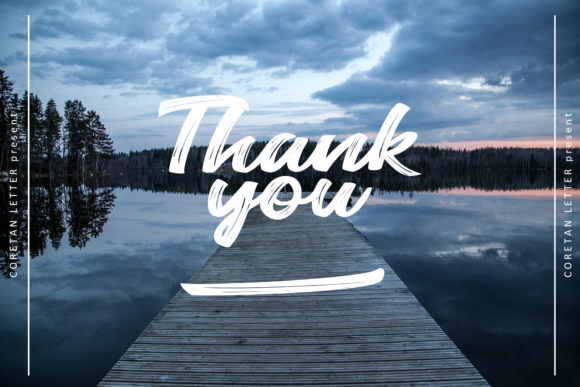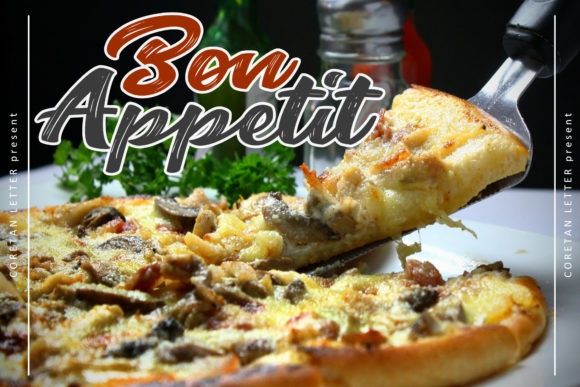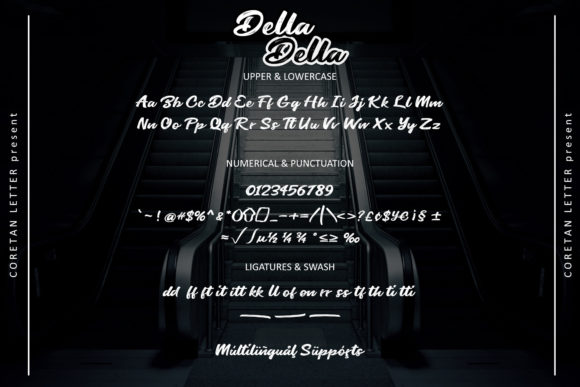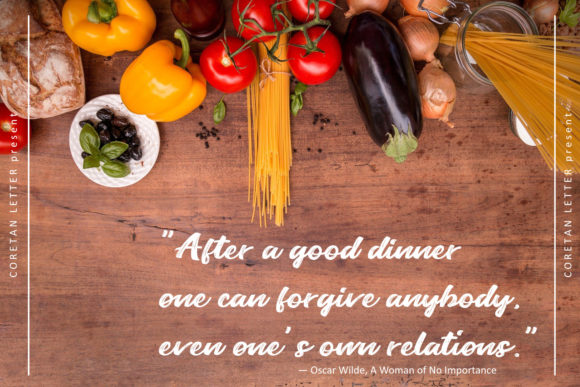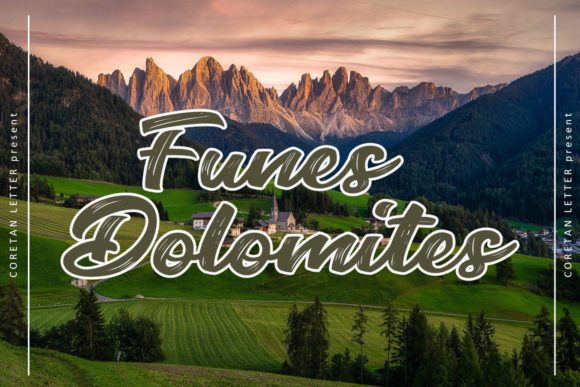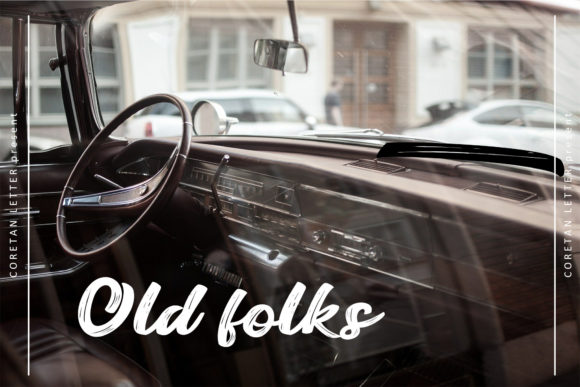
The Designer’s Delight: Unpacking the Della Della Font
I’ll never forget the time I was working on a branding project for a trendy coffee shop. My client wanted a font that screamed confidence, energy, and a dash of nostalgia. I scoured the internet, tried out a gazillion fonts, but nothing seemed quite right. That was until I stumbled upon Della Della Font. It was love at first sight! 💕 In this article, I’ll share my journey with Della Della, its features, and how to make the most of it in your designs.
An Honest Review of Della Della Font
So, what makes Della Della so special? Let’s dive into the good stuff and, well, the not-so-good stuff.
What I Love About Della Della ✨
- 💪 **Strong and Confident**: Della Della’s thick lettering and cursive strokes exude confidence and dynamism, making it perfect for headlines and logotypes.
- 🕰️ **Nostalgic Charm**: This font has a certain vintage vibe that adds character to your designs, evoking memories of classic signage and posters.
- 🎨 **Brushed Handwritten Feel**: The subtle brush strokes give Della Della a human, handcrafted feel that’s perfect for creative projects.
- ✅ **Easy to Read**: Despite its bold nature, Della Della remains surprisingly legible, even at smaller sizes.
While Della Della is an amazing font, it’s not without its quirks:
- ⚠️ **Limited Use in Body Text**: Due to its bold nature, Della Della might not be the best choice for lengthy body text. It’s best used for headings and titles.
- 🤔 **Kerning Issues**: As with any font, you might encounter some kerning issues, especially with certain letter combinations. Be sure to adjust as needed.
While the origins of Della Della Font are shrouded in mystery, it’s clear that the designer was inspired by classic signage, vintage posters, and the art of hand-lettering. The result is a font that’s both nostalgic and modern, perfect for designers looking to add some character to their work.
| Font Name | Della Della Font |
| Author | Coretanletter |
Q: What type of projects is Della Della best suited for?
A: Della Della is perfect for headlines, logotypes, and titles where you want to make a bold statement. It’s great for branding, advertising, and creative projects.
Q: Can I use Della Della for body text?
A: While Della Della is legible, its bold nature makes it less suitable for lengthy body text. Stick to headings and titles for the best results.
Q: Does Della Della support OpenType features?
A: Yes! Della Della supports OpenType features like ligatures and stylistic alternates, giving you plenty of creative options.
Q: Is Della Della suitable for digital use?
A: Absolutely! Della Della’s clear and confident design makes it perfect for digital applications, from social media graphics to website headers.